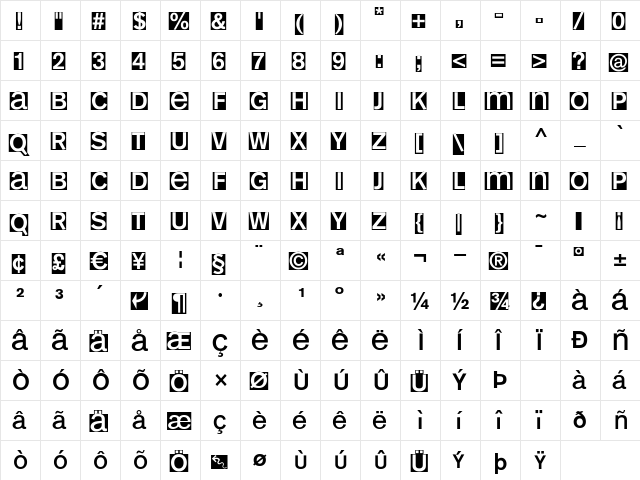
KL1 MonoSans Invers
Design Context for KL1 MonoSans Typeface
KL1 MonoSans uses fixed-width spacing throughout, giving it the structured, systematic character associated with coding environments and technical documentation.
Well-suited to data-driven dashboards, coding tutorials, and any design that wants to reference the world of programming.
Pro Tip: Use KL1 MonoSans with slightly increased line-height for extended reading — fixed-width spacing can feel dense in longer passages without extra breathing room.